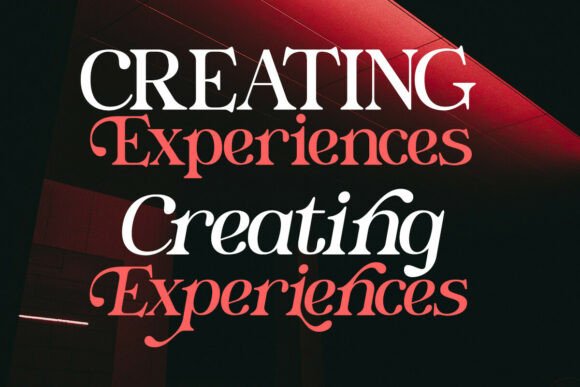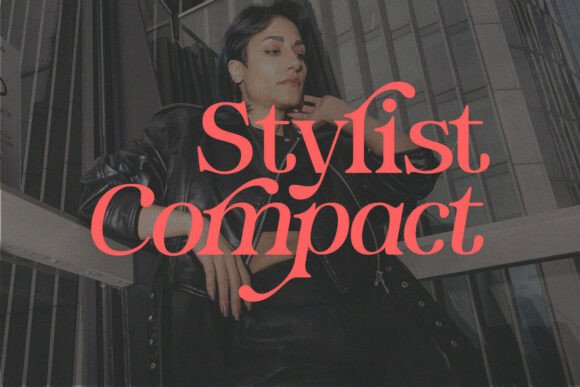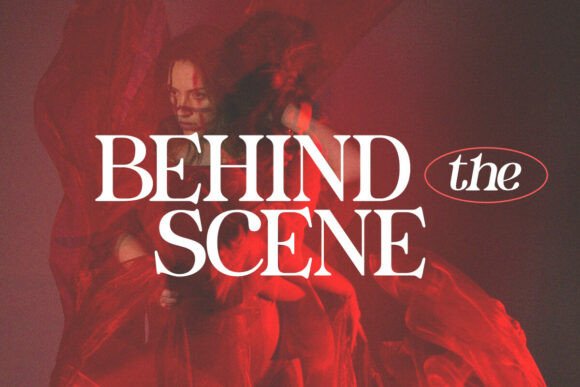
Introduction to Lubidow Font
Have you ever stumbled upon a design that makes you pause, take a deep breath, and feel an instant rush of inspiration? That’s exactly what happens when you encounter the Lubidow Font. This sophisticated serif display font is a masterclass in elegance and impact, effortlessly merging timeless charm with a bold modern flair.
With its dramatic contrast, flowing curves, and signature swash touches, Lubidow is crafted to command attention and elevate your typographic identity. Whether you’re a seasoned designer or just starting your creative journey, Lubidow Font is an invaluable resource that will take your projects to the next level. Its versatility and high-quality design make it perfect for a range of applications, from luxury branding and fashion editorials to packaging and digital storytelling.
As a design resource, Lubidow Font offers a refined visual voice that speaks with style and authority, setting you apart from the crowd and making your work truly unforgettable. And the best part? With its transparent background and effortless PUA-encoded functionality, Lubidow Font is available for free download, making it an essential addition to any designer’s toolkit.
Key Features of Lubidow Font
- Features a transparent background, making it easy to layer with other design elements.
- Includes a comprehensive set of glyphs and characters, making it suitable for a wide range of creative projects.
- Designed with a focus on legibility and readability, ensuring that your text stands out in any design.
- Compatible with high-resolution displays, ideal for use in print and digital design projects.
Honest Review: Lubidow Font
I recently stumbled upon the Lubidow Font while searching for a unique design resource to enhance my creative project. I must say, it’s a gem that exceeded my expectations in many ways.
Here are some aspects that work well for me:
- ✨ High-quality typography: The Lubidow Font features beautiful, elegant lettering that instantly elevates the aesthetic of any design.
- ✨ Versatility: This font is suitable for various creative projects, from posters and flyers to business cards and websites.
- ⚠️ Limited customization options: While the Lubidow Font is beautiful, it’s not particularly flexible when it comes to font size, style, or color adjustments.
- ⚠️ Transparency issues: The font’s transparent background may not be suitable for all design projects, particularly those that require a solid background.
Overall, I’m impressed with the Lubidow Font’s high quality and versatility. It’s an excellent addition to any designer’s toolkit, especially for those working on creative projects that require a touch of elegance and sophistication.
Introduction to Lubidow Font
Lubidow Font is a high-quality, free design resource ideal for creative projects. Its transparent background makes it perfect for overlaying on images or using as a standalone element. With its unique style, Lubidow Font is a valuable addition to any designer’s toolkit.
Tips for Getting the Most Out of Lubidow Font
Experiment with different font sizes, colors, and styles to create visually appealing designs. Combine Lubidow Font with other design elements, such as images and graphics, to add depth and interest.
Lubidow Font is perfect for:
- Social media graphics and posts
- Infographics and presentations
- Marketing materials and brochures
- Blog posts and articles